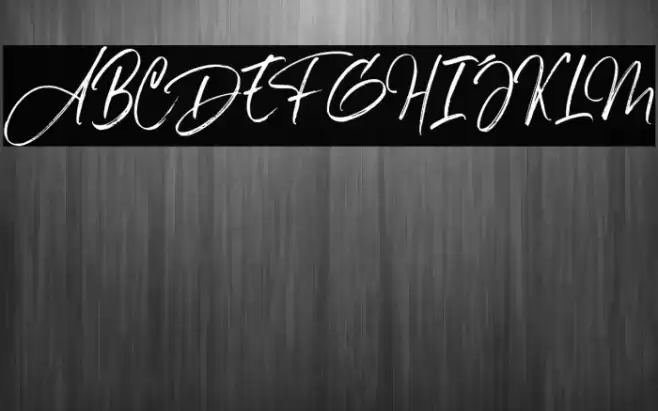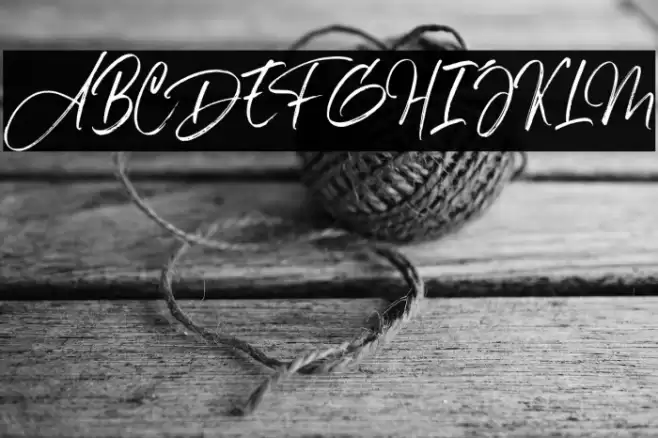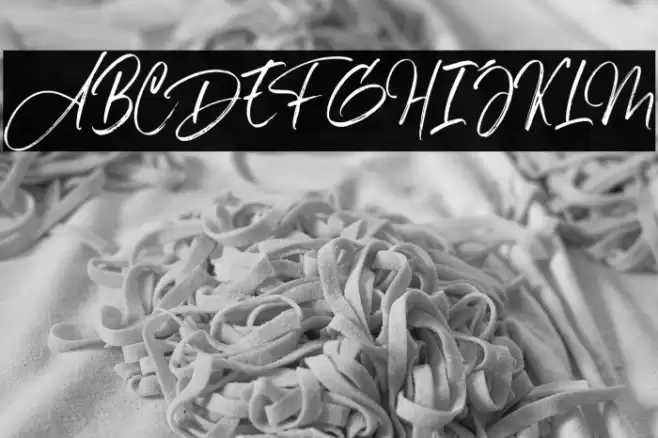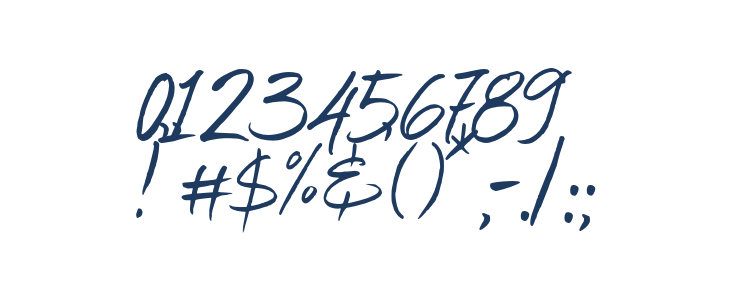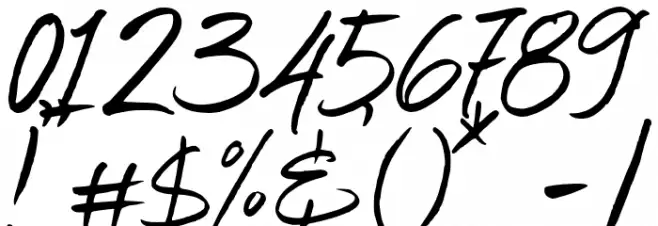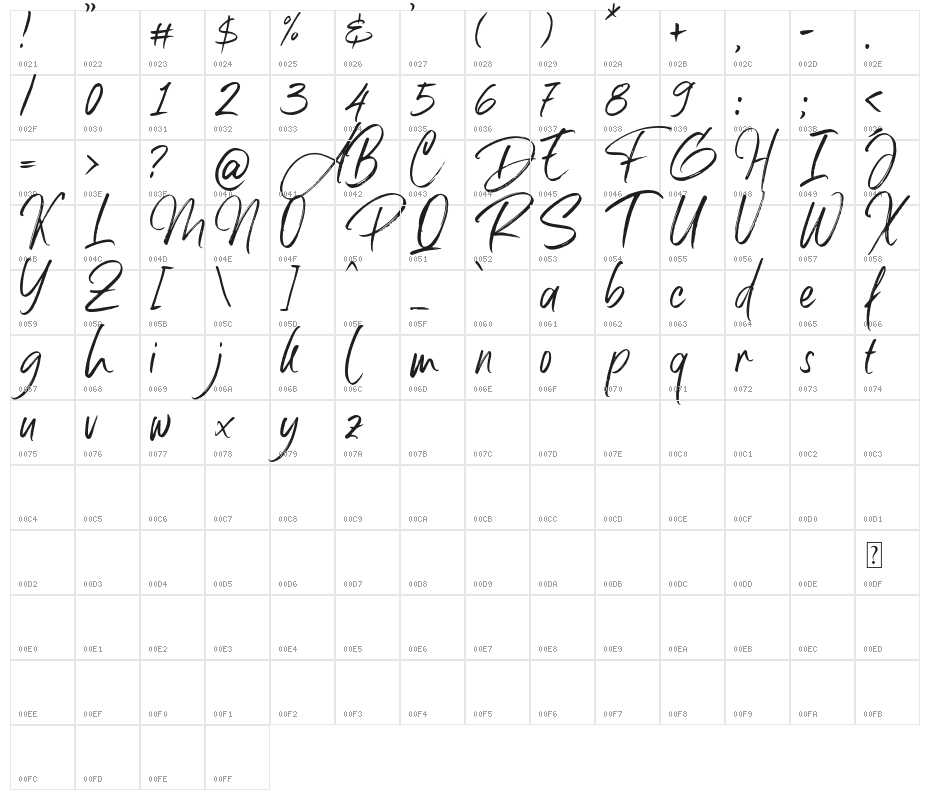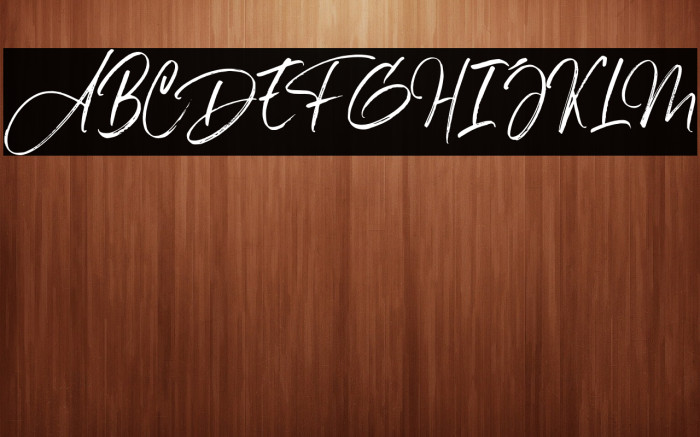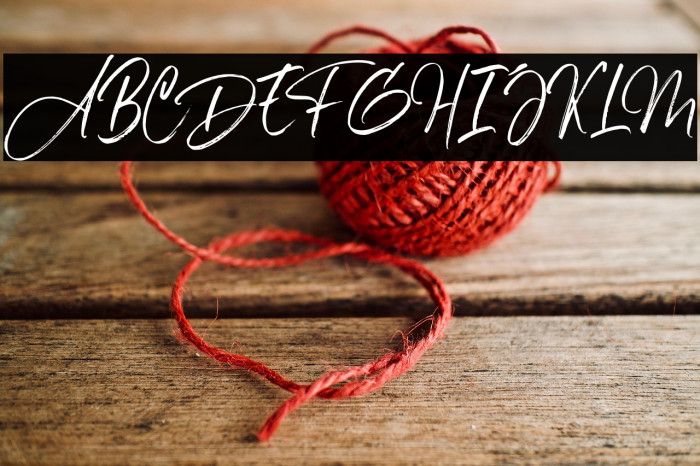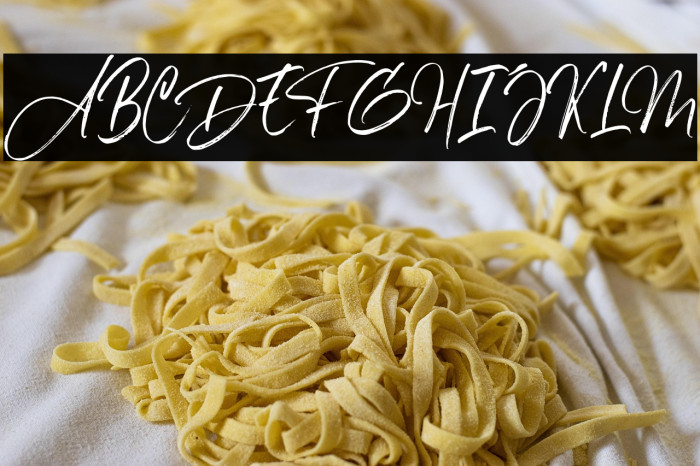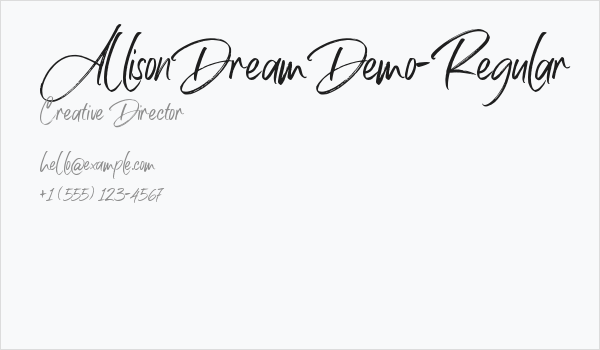
AllisonDreamDemo-Regular Font
AllisonDreamDemo-Regular Description
This font features a dynamic and fluid script style, characterized by its elegant, flowing lines and a handwritten appearance. The uppercase letters are slightly slanted, with a graceful, cursive flair that adds a touch of sophistication. The lowercase letters maintain a consistent style, with smooth curves and a natural, organic feel. Numbers and special characters are integrated seamlessly, maintaining the overall aesthetic. The font's design is both artistic and legible, making it suitable for a variety of creative applications.
A fluid and elegant script font with a handwritten style from Uncategorized fonts.
- Font: AllisonDreamDemo-Regular
- Proposed Projects: Ideal for wedding invitations, greeting cards, branding projects, and personal signatures.
- Use Case: Logos, Invitations, Personal Signatures